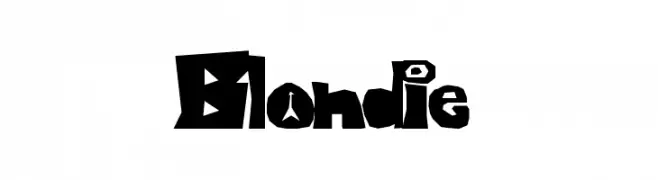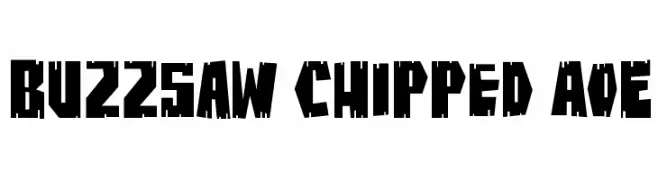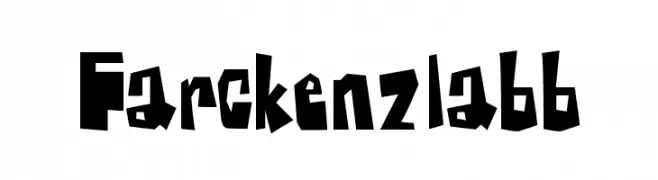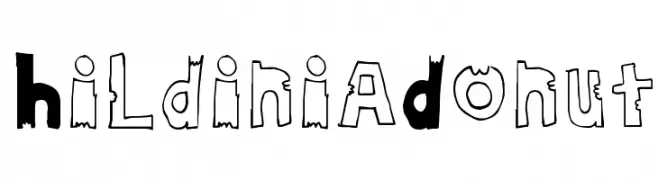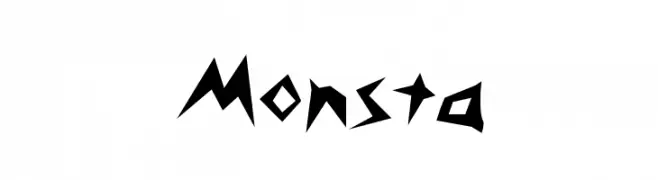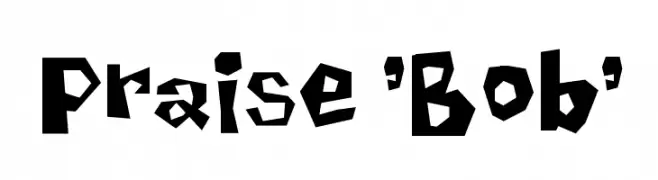
( Fonts by Spork Thug Typography - Josh Wilhelm - www.lifewithouttaffy.com/taffy/blog )
A bold, playful font with an irregular, jagged design.
( Fonts by Astigmatic One Eye Typographic Institute - Brian J. Bonislawsky - astigmatic.com )
A bold, rugged font with jagged, chipped edges for a distressed, industrial look.
( Fonts by Jacob Fisher - www.pizzadude.dk )
A playful, bold font with jagged edges and a hand-drawn aesthetic.
( Fonts by joeBob graff-X )
A playful, bold font with jagged edges and a cartoonish style.
A bold, jagged font with a playful and energetic style.